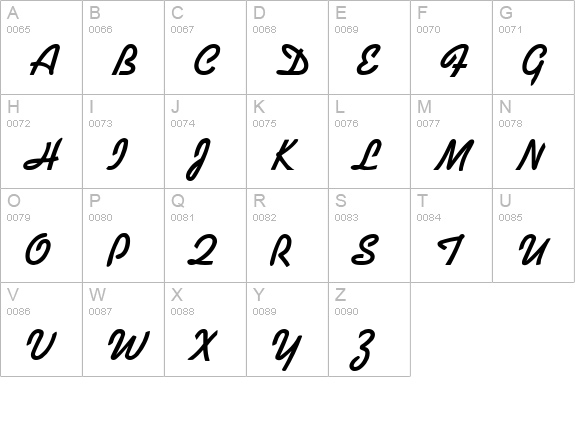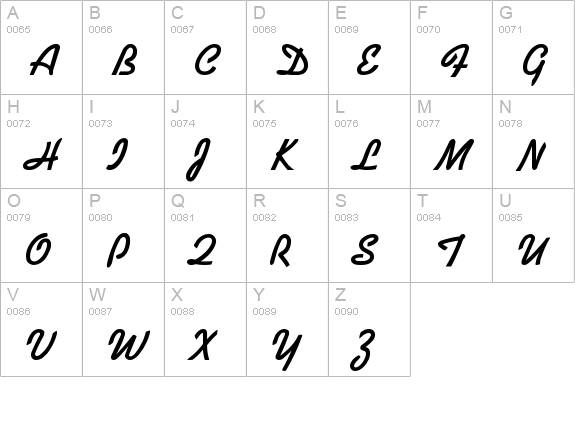
Koffee Bold Font Details
Koffee Bold is a strong, high-contrast variant in the Koffee typeface family \xE2\x80\x94 well suited to headlines, attention-grabbing titles, and strong calls-to-action.
Introducing Koffee Bold font, a dynamic and eye-catching typeface designed to make a bold statement in your projects. With its strong and modern appearance, Koffee Bold is perfect for headings, titles, and other elements that demand attention. This versatile font exudes confidence and adds a touch of sophistication to any design. What sets Koffee Bold font apart is not only its striking aesthetic appeal, but also the fact that it is available for free download at FontsMarket.com. This means you can easily access this exceptional font to elevate your creations without any cost. Whether you're working on branding, advertising, or any other creative endeavor, Koffee Bold font is sure to leave a lasting impression. Download it today and experience the power of this remarkable typeface.